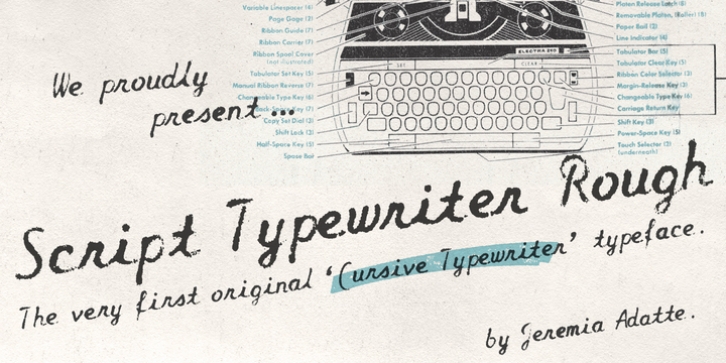
Script Typewriter Rough from Jeremia Adatte Studio is the very first complete cursive typewriter font ever made after the original 1960 Smith-Corona Electra 210 typewriter that comes with a unique script typeface design. It’s loaded with more than 270 ligatures to avoid letter texture repetition in a word and extremely detailed to imitate the subtle letterpress effect you get with a real typewriter. During the typewriting era, only a few models came with this rare type style that was created to imitate hand-lettering to add more personality in a correspondence.